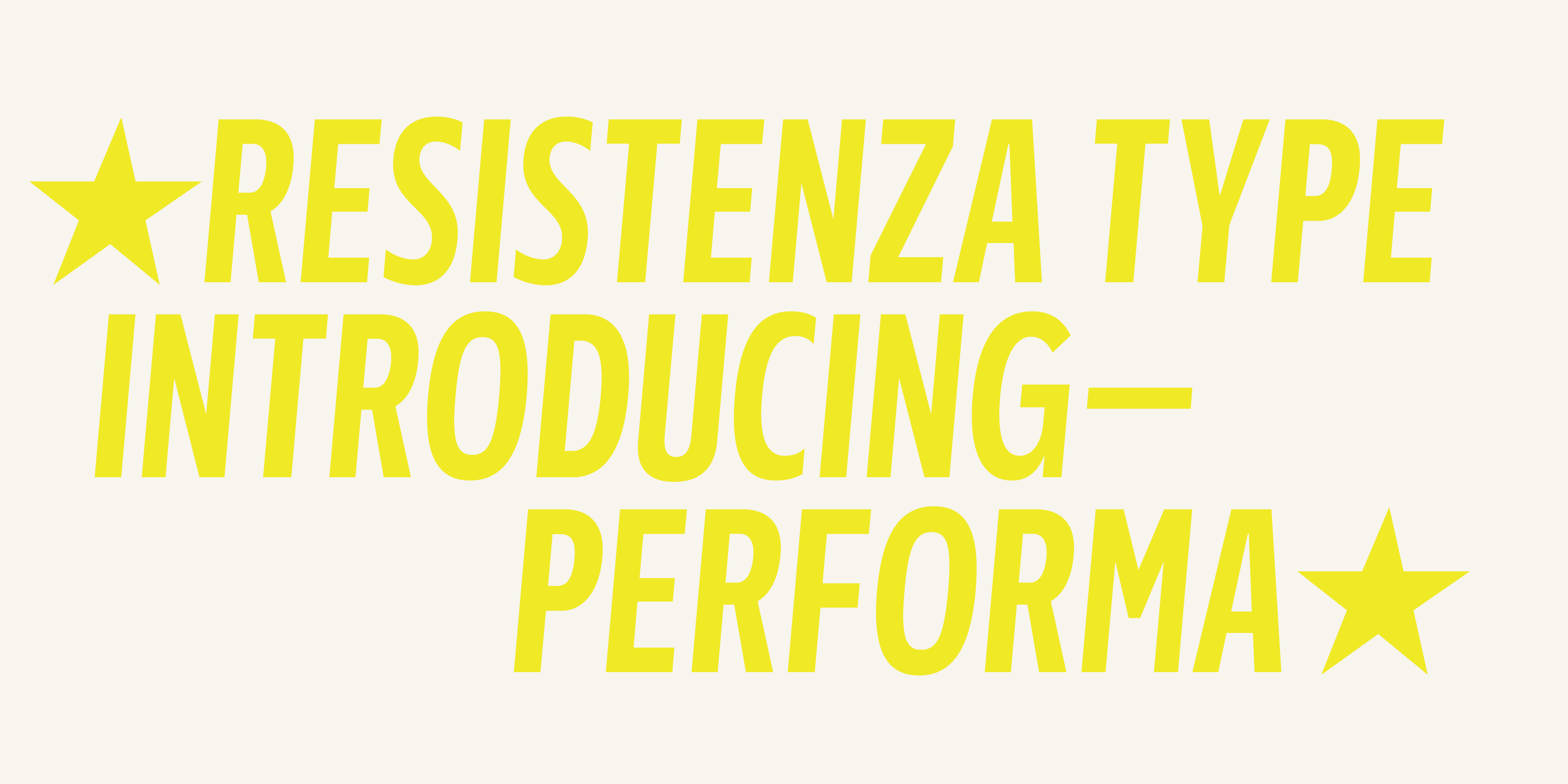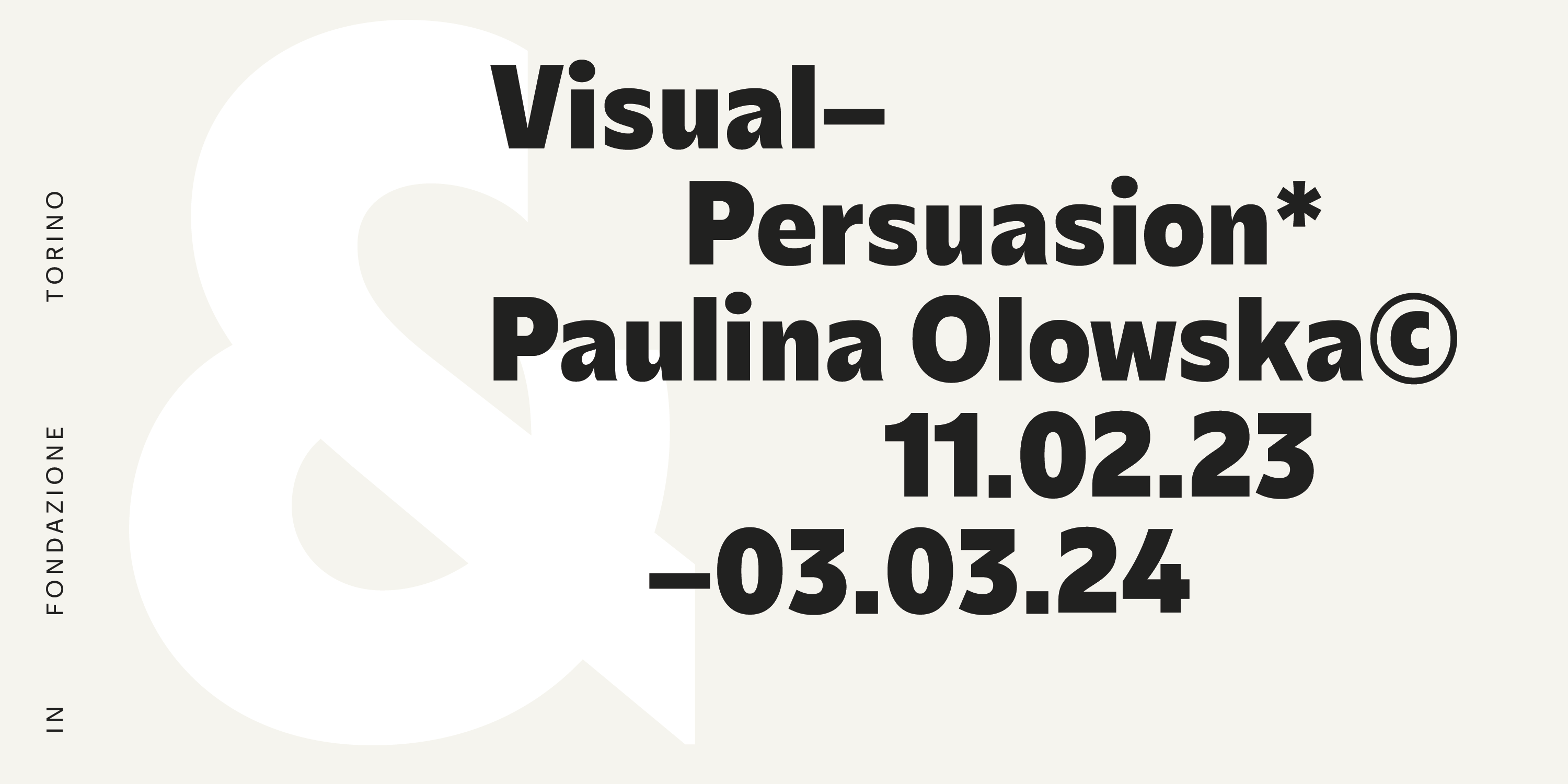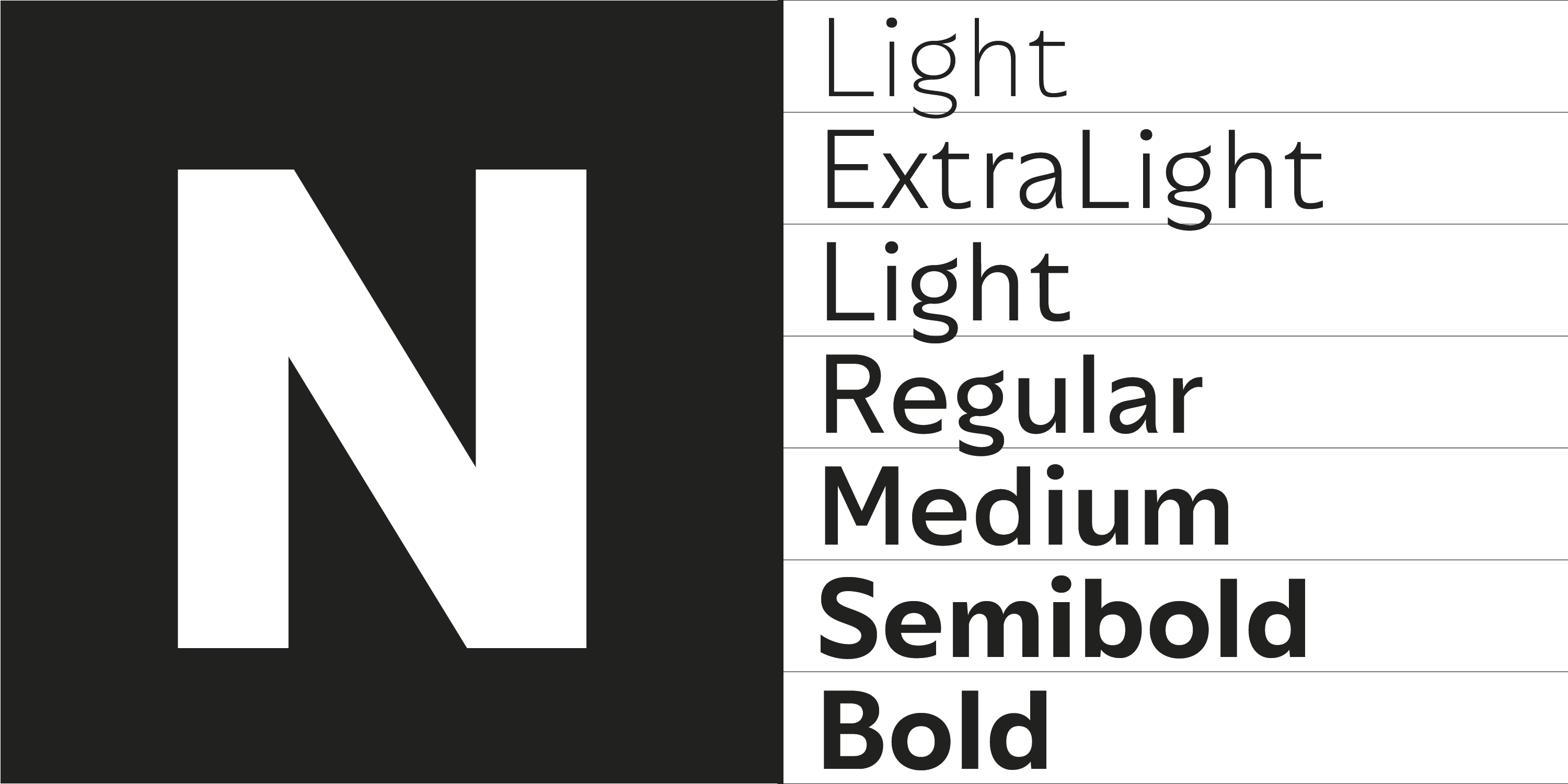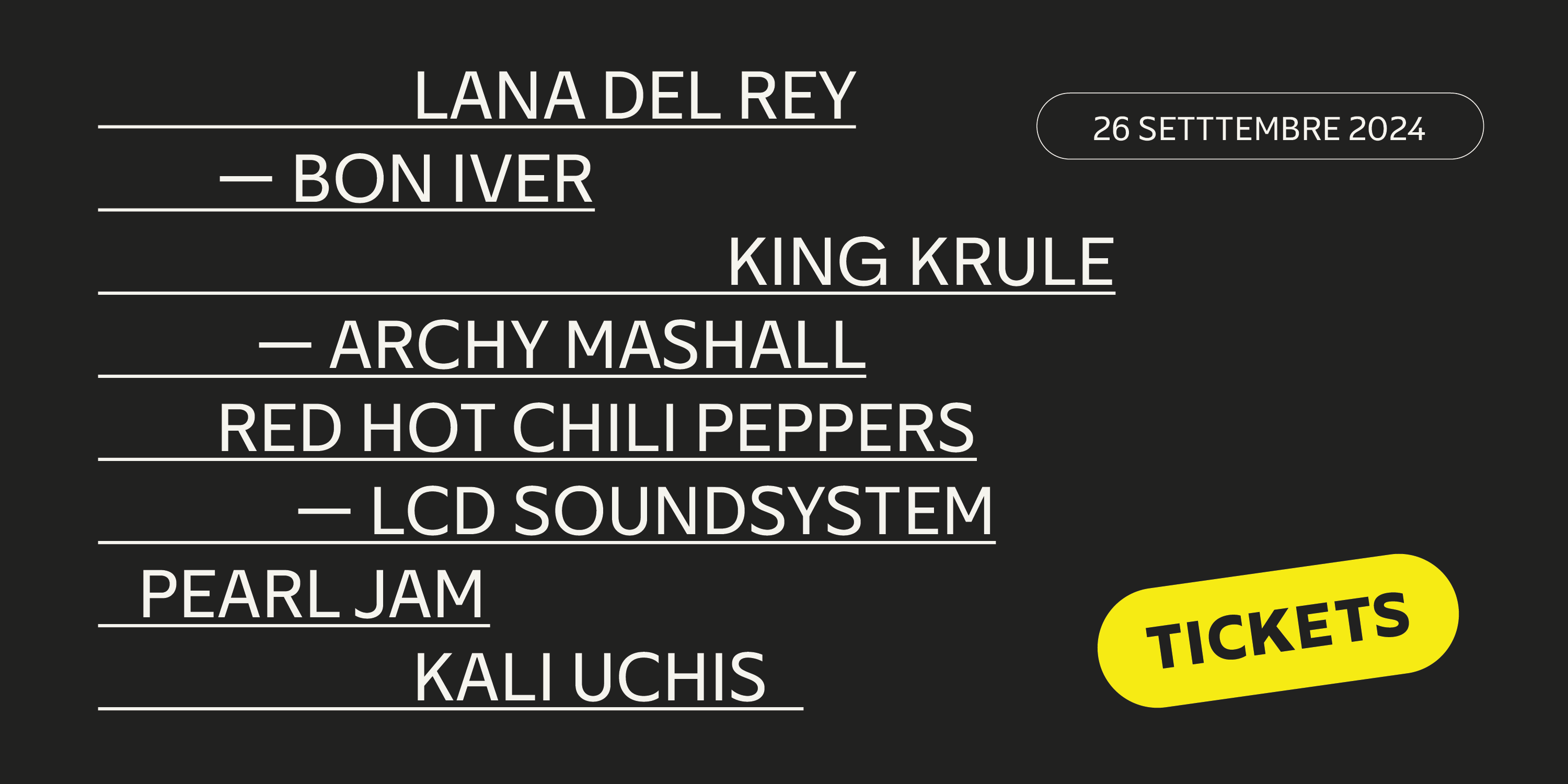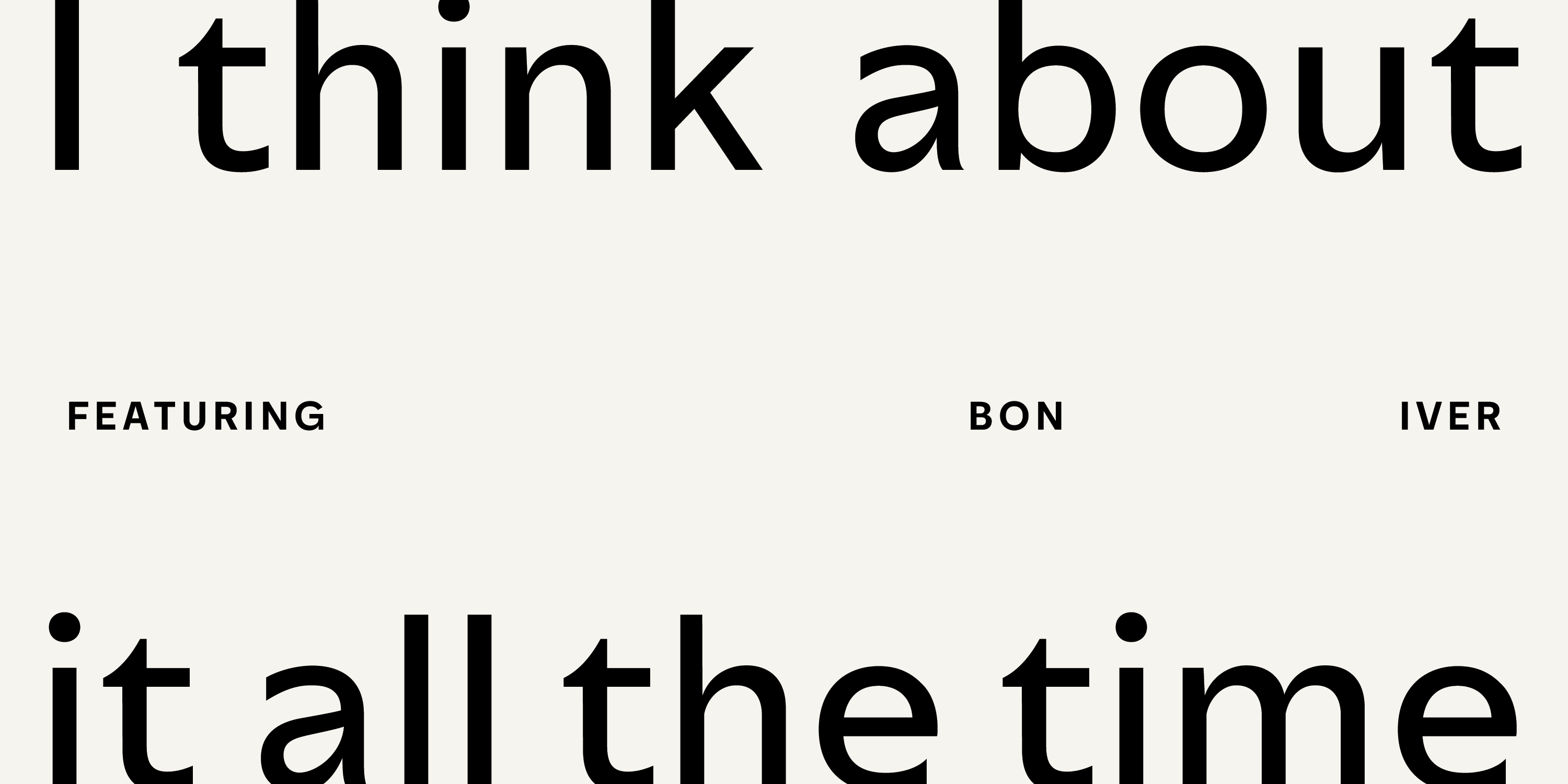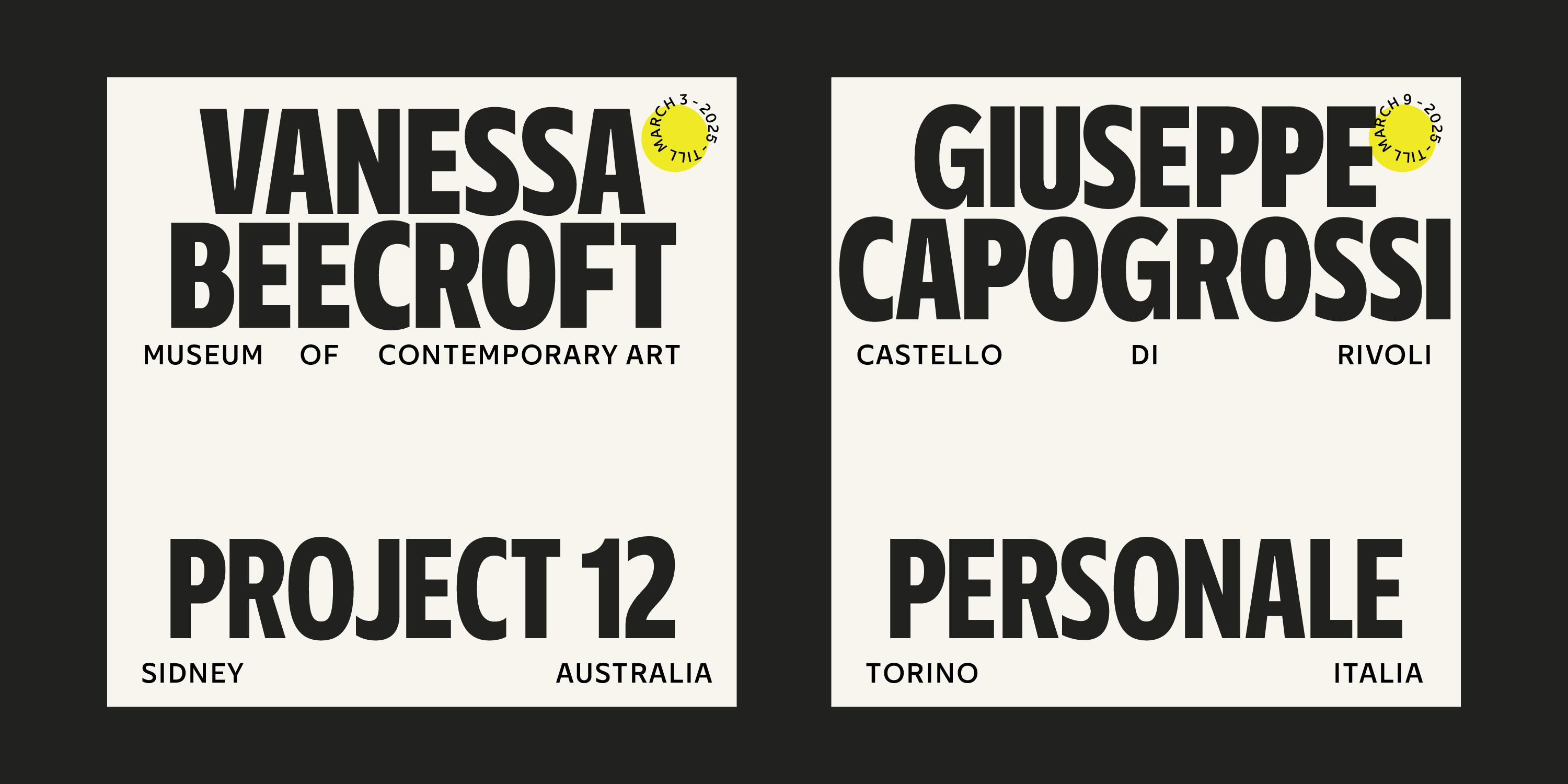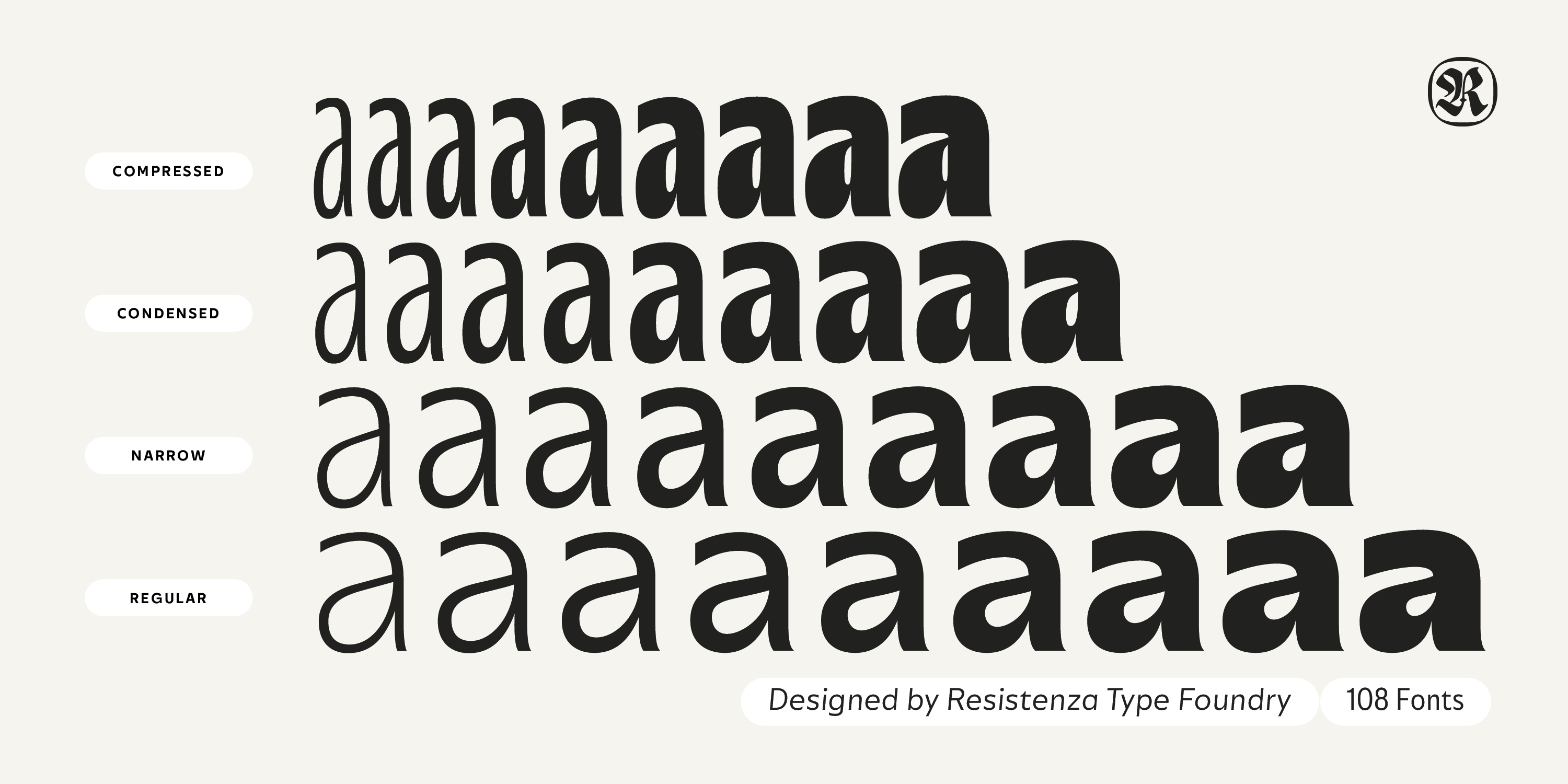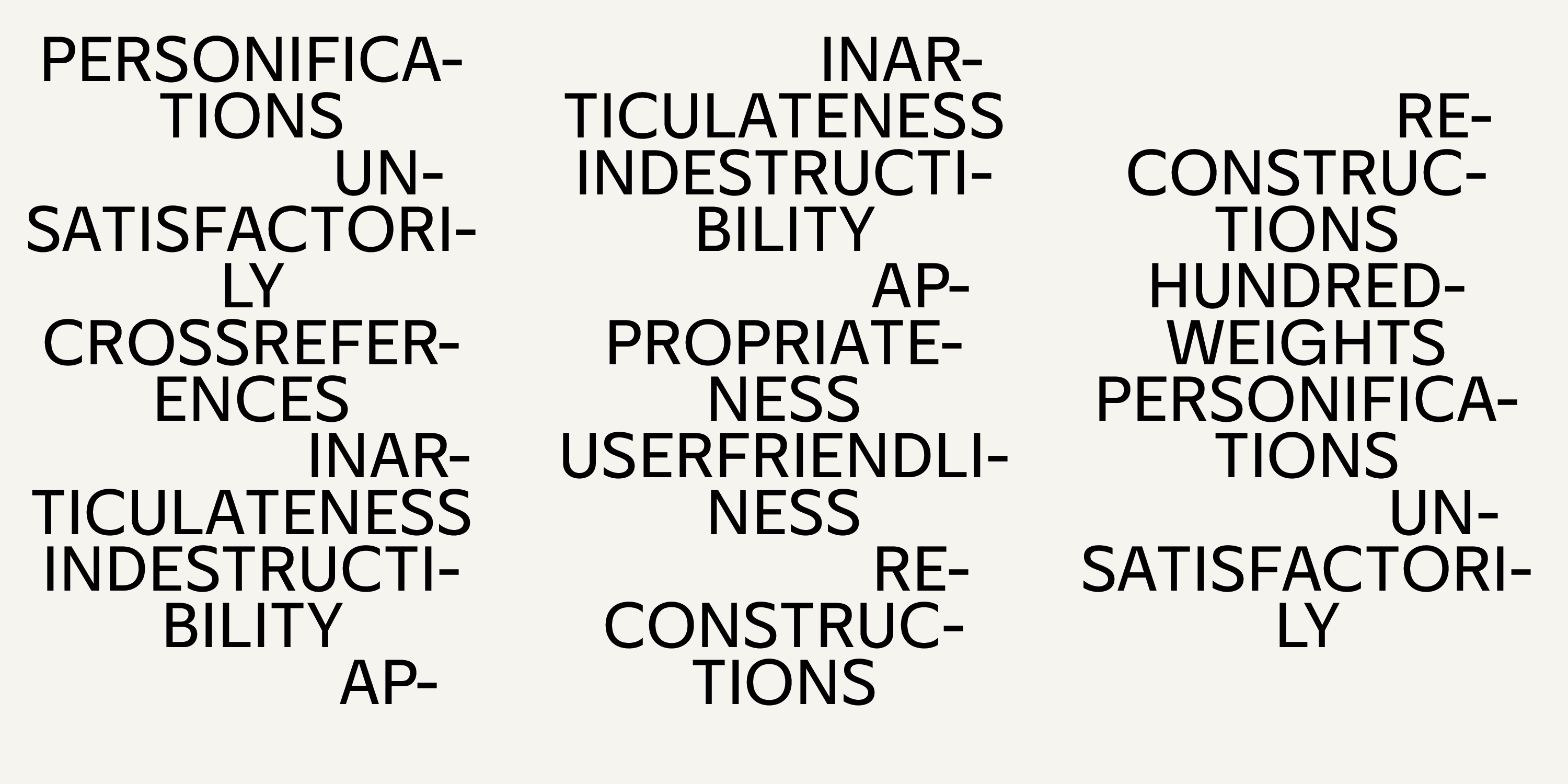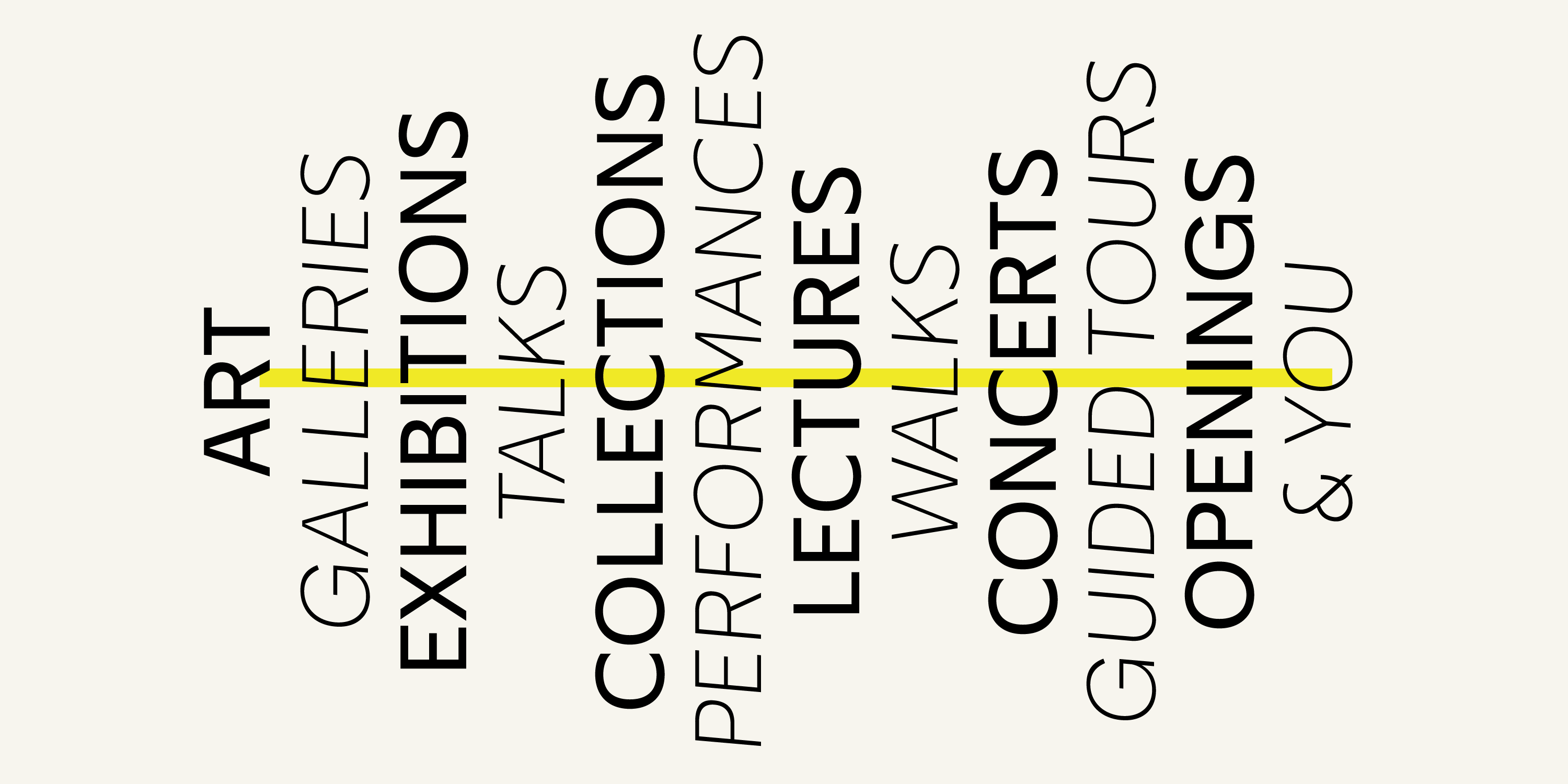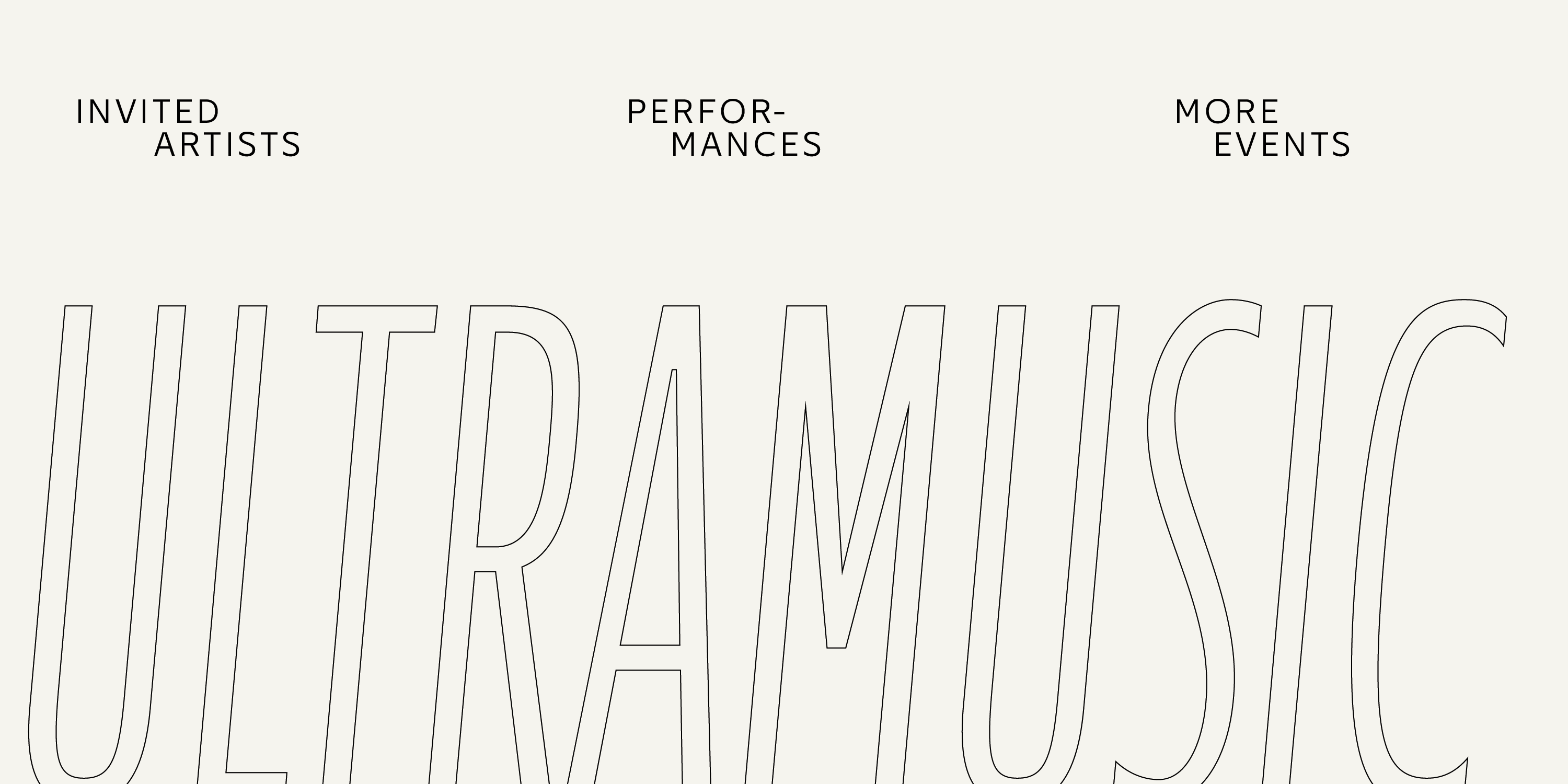
Performa Collection
Performa
A huge sans serif family
Performa
Designed by Resistenza Type Foundry
Introducing Performa, a comprehensive sans-serif font family that effortlessly marries the best of both grotesque and geometric design philosophies. With a remarkable collection of 108 fonts, Performa offers an extensive range of weights and styles, spanning from Thin to Black and Compress to Wide. This makes it a highly adaptable, elegant, and stylish choice for a variety of creative needs.
Its versatility shines through in both digital and print formats, ensuring readability and a refined aesthetic across mediums.